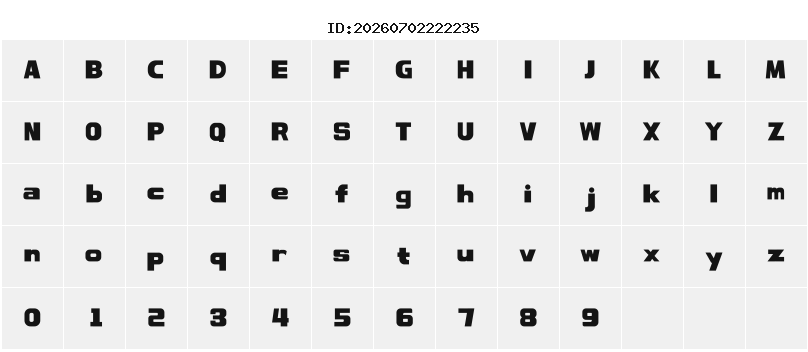
248-上首非凡体 Preview
• Font Name: 248-上首非凡体
• Font ID: 248-SSFeiFanTi:Version 4.00
• Full Font Name: 248-上首非凡体
• Version: Version 4.00 June 1, 2023
• PostScript Name: 248-SSFeiFanTi
• Character Count: 7566
• Manufacturer: 上首造字
About 248-上首非凡体.ttf
248-上首非凡体.ttf is a modern, elegant sans-serif font designed for ultimate readability and visual harmony. Perfect for branding, headlines, web design, and print materials.